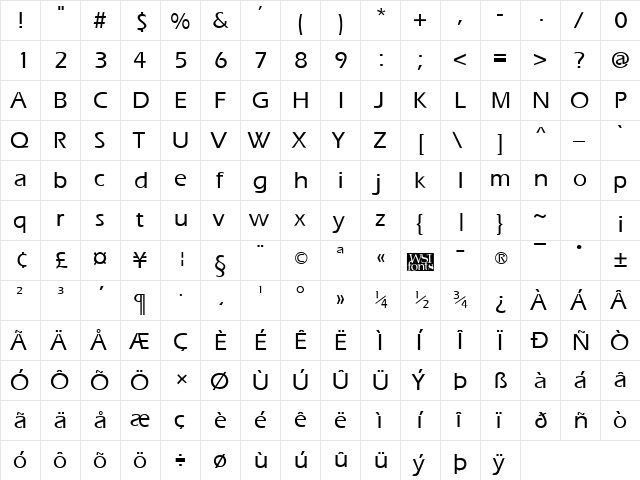
ErgoeMedium Regular
Design Context for ErgoeMedium Typeface
ErgoeMedium is a composed and adaptable typeface that performs quietly and consistently across a wide range of design contexts.